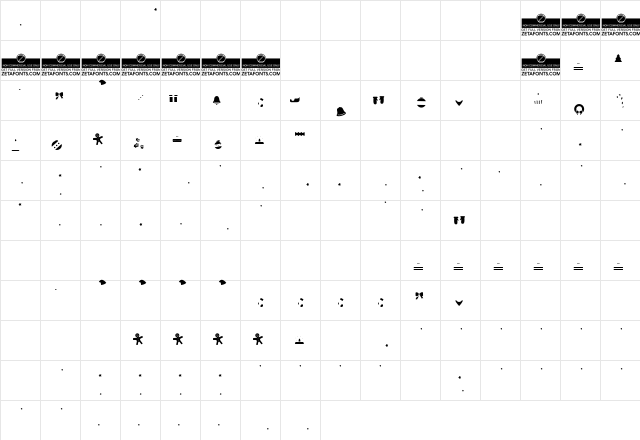
Hello Christmas Fill Trial Regular
| Foundry | Zetafonts |
| Designer | Cosimo Lorenzo Pancini |
Design Context for Hello Christmas Fill Trial Typeface
Hello Christmas Fill Trial is a composed and adaptable typeface that performs quietly and consistently across a wide range of design contexts.